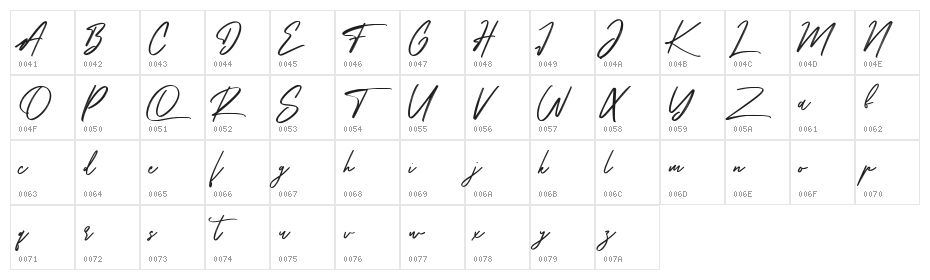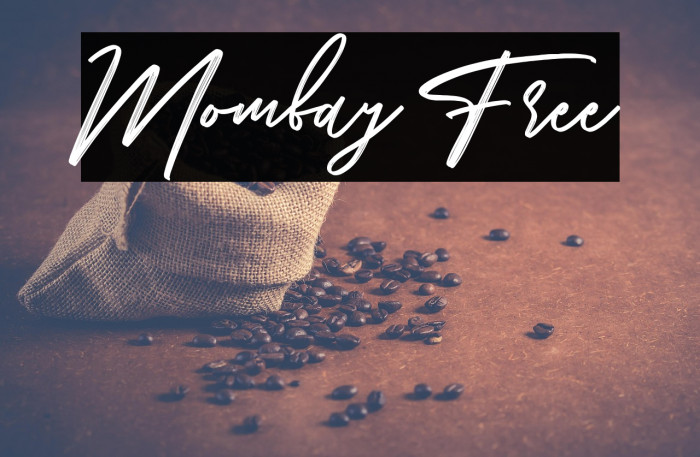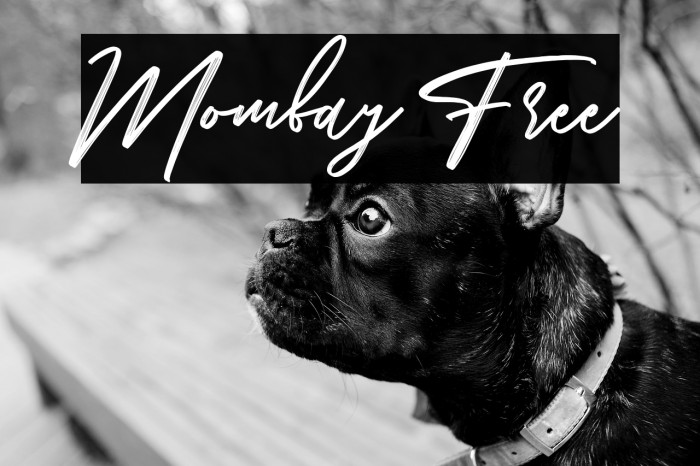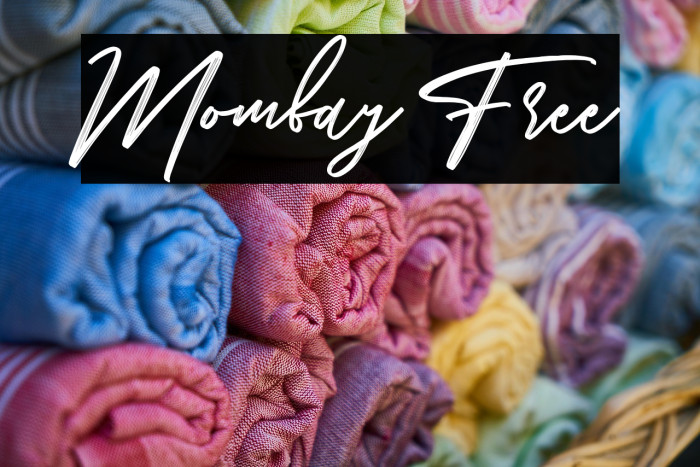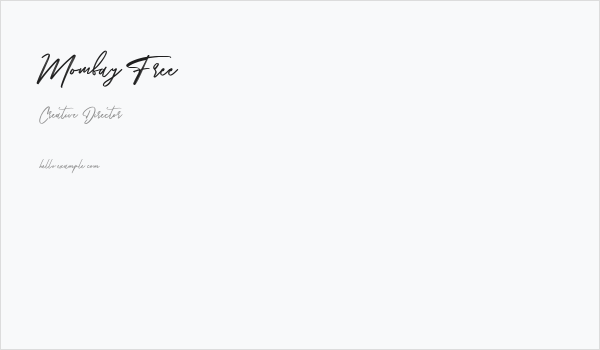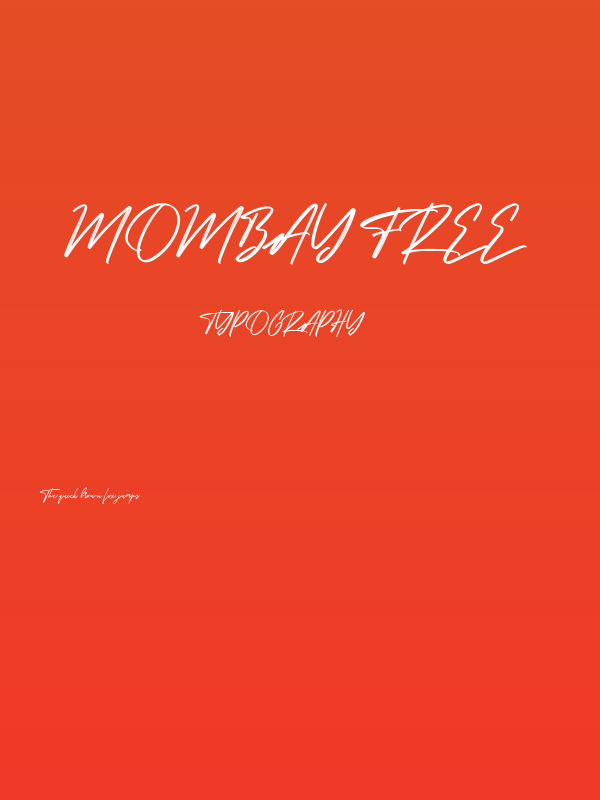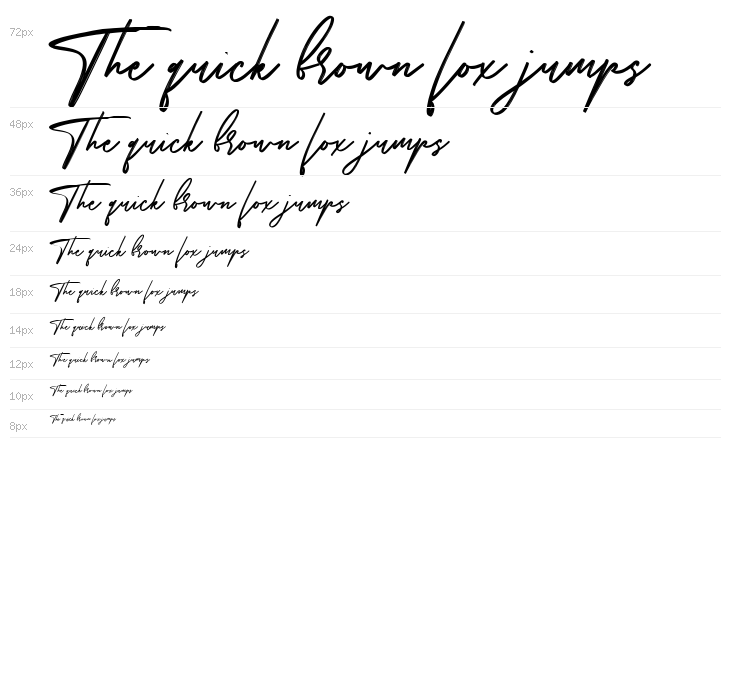
Mombay Free Font
Mombay Free Description
This font features a dynamic and flowing script style that exudes elegance and sophistication. The characters are interconnected with smooth, cursive strokes, giving it a handwritten appearance. The uppercase letters are bold and sweeping, while the lowercase letters maintain a consistent fluidity. The font has a modern flair, with a slight slant that enhances its graceful movement. It is well-suited for creative projects that require a personal touch, such as invitations, branding, and artistic designs. The overall aesthetic is both stylish and approachable, making it versatile for various applications.
| Use Case | Logos, Invitations, Artistic Designs |
| Proposed Projects | Ideal for invitations, branding, artistic designs, and any project needing a personal touch. |